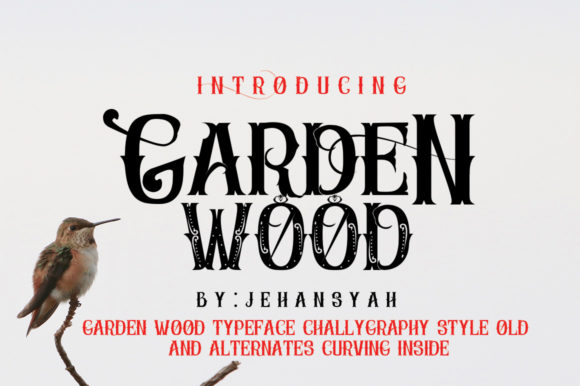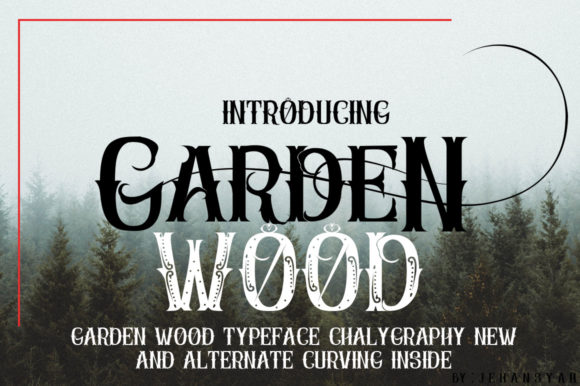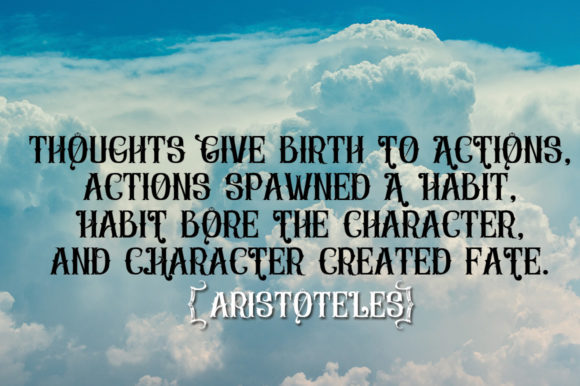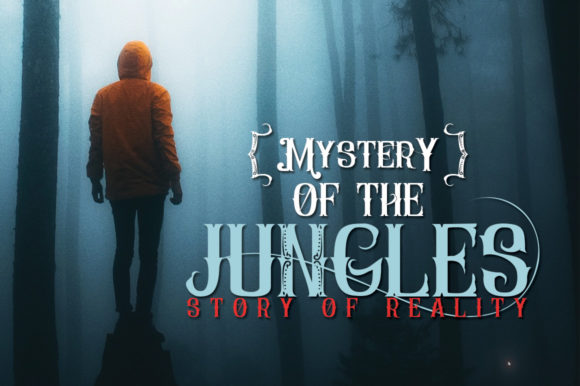
Garden Wood Font: A Unique Calligraphy Font for Rustic Designs
About the Garden Wood Font
Let us introduce you to Garden Wood Font, where timeless design meets modern craftsmanship. The Garden Wood is an unique typeface. It includes an amazing old calligraphy style, and has unique curving’s.
Its calligraphic nature makes Garden Wood ideal for headlines, short text blocks on invitations or packaging, and branding elements requiring a touch of vintage charm. Avoid using it for body text or lengthy paragraphs; its ornate style hinders readability in extended use.
The font exudes a warm, slightly rustic elegance. It’s perfect for brands associated with handcrafted goods, artisanal products, or businesses emphasizing natural elements.
Pairing it with a clean sans-serif like Lato for body text or a geometric sans-serif like Montserrat for a more modern feel will create a balanced and visually appealing design. Consider a simple serif like Playfair Display for a more traditional pairing.
Garden Wood Font Usage Examples
Garden Wood Font Example